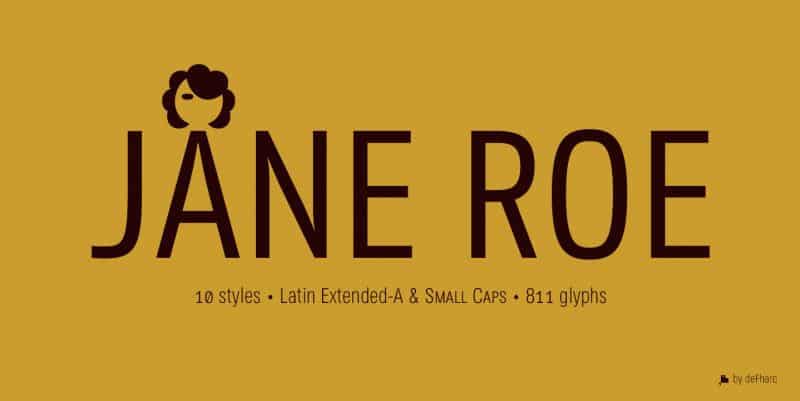
Jane Roe Font
Jane roe font the wrangler is simply an American font that might be very favored because of its denim & shirts. Also one of the best of google fonts.
Style Of Jane Roe Font Free
Due to the fact the quite a few types of designers from a range of fields whiling to work together with that typeface and create a few new designs that accept as true with unique from others. This font also used in photoshop.
Its call is a brilliant sans serif font own family to be had in markets. For the first time, it was created via submit.